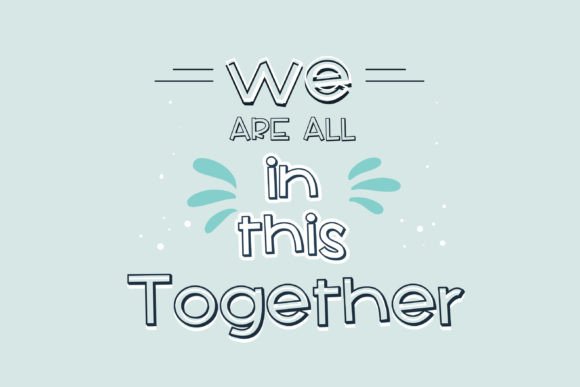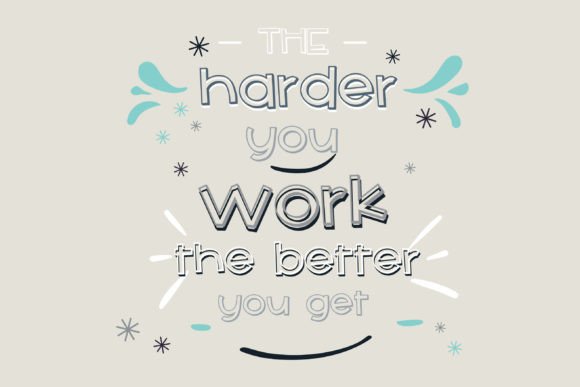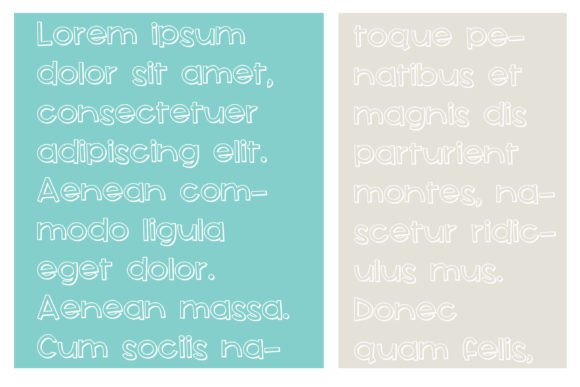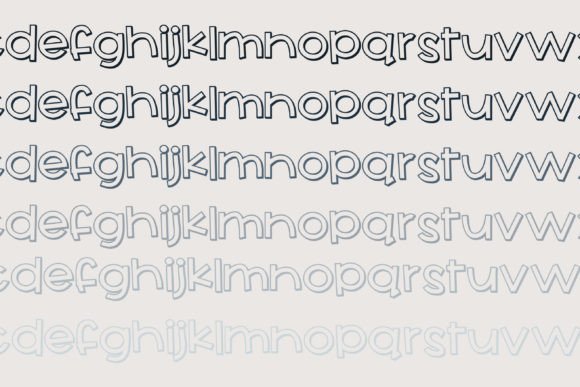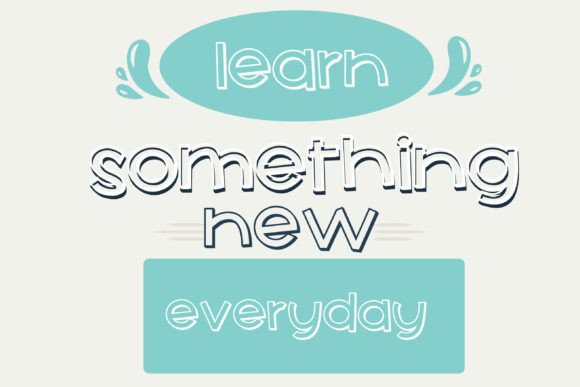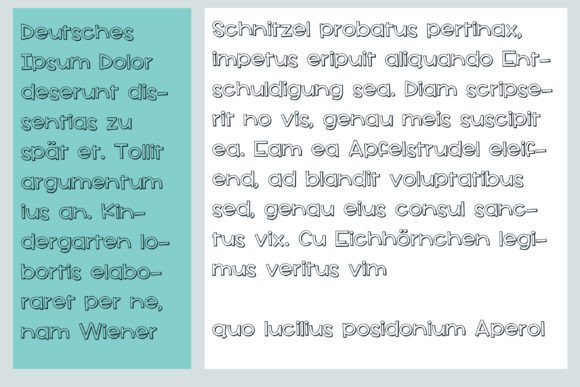
Introduction to Homework 3d Font
Do you remember the thrill of working on a creative project as a student, pouring your heart and soul into a poster or a presentation, only to see it come to life with a dash of creativity and imagination? For designers and creatives, those moments are what drive us to push the boundaries of our work and strive for something truly exceptional. And that’s exactly where the Homework 3D font comes in – a high-quality design resource that adds a touch of youthful energy to any project.
Whether you’re working on a school project, a commercial design, or just a fun creative endeavor, the Homework 3D font is sure to bring a pop of color and vibrancy to your text. With its playful print style and transparent background, this free download is the perfect addition to any design arsenal.
Key Features of Homework 3d Font
- High-quality 3D font design for creative projects, perfect for adding a unique touch to your work.
- Transparent background, allowing for easy customization and integration with various design elements.
- Unique, handcrafted design that sets it apart from other fonts, making it an excellent choice for designers seeking a creative edge.
Honest Review: Homework 3d Font
I recently stumbled upon the Homework 3d Font, and I must say it’s been a game-changer for my creative projects. This font is a high quality, 3D-inspired design resource that’s perfect for adding a unique touch to your work.
Here are some of the key features that I love about Homework 3d Font:
- High quality 3D-inspired design
- Perfect for creative projects and design resources
- The font may not be suitable for all types of projects (e.g. body text)
- The 3D effect may not be to everyone’s taste
Overall, I’m really impressed with Homework 3d Font. It’s a fantastic design resource that can add a unique touch to your work. With its high quality design and transparent background option, it’s definitely worth checking out.
Homework 3d Font is suitable for a variety of creative projects, including graphic design, branding, and digital art. It’s also a great choice for presentations, reports, and other documents that require a professional, high-quality look.
Yes, the Homework 3d Font is designed to work seamlessly with transparent backgrounds. Since it’s a vector font, you can easily edit and manipulate its elements, including the background, without compromising its quality. This feature makes it an excellent choice for designers working on projects that require complex backgrounds or overlays.